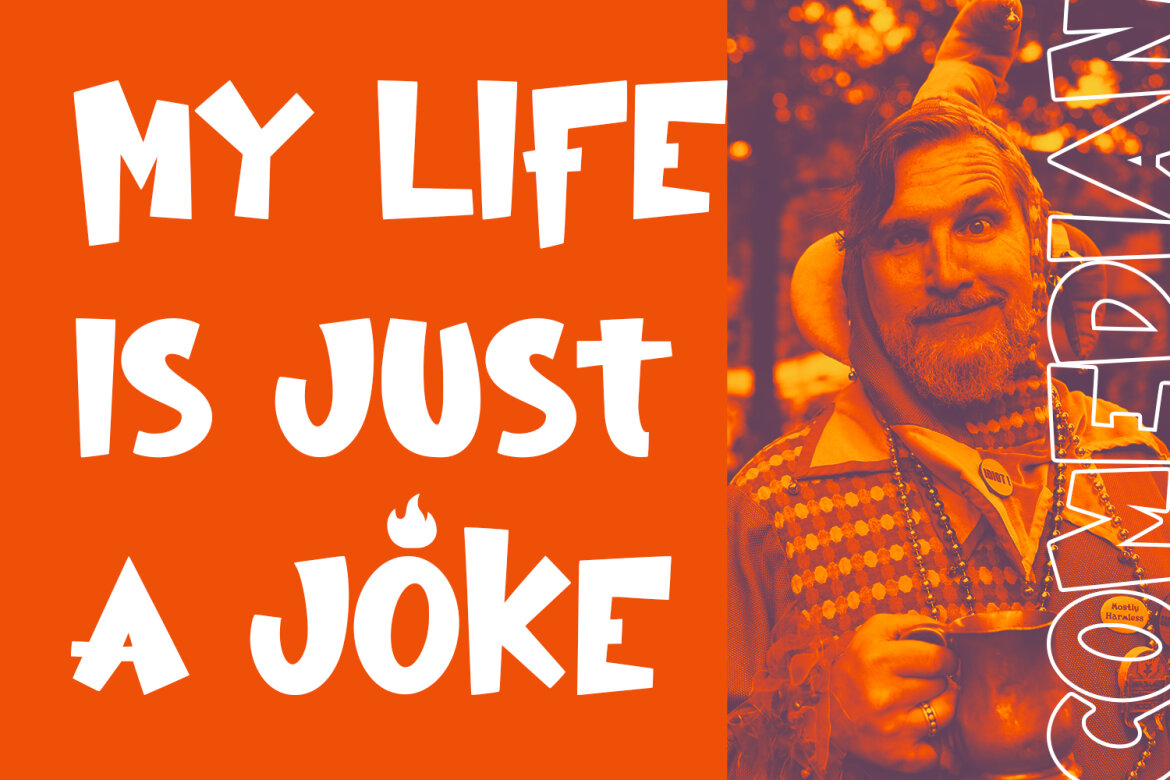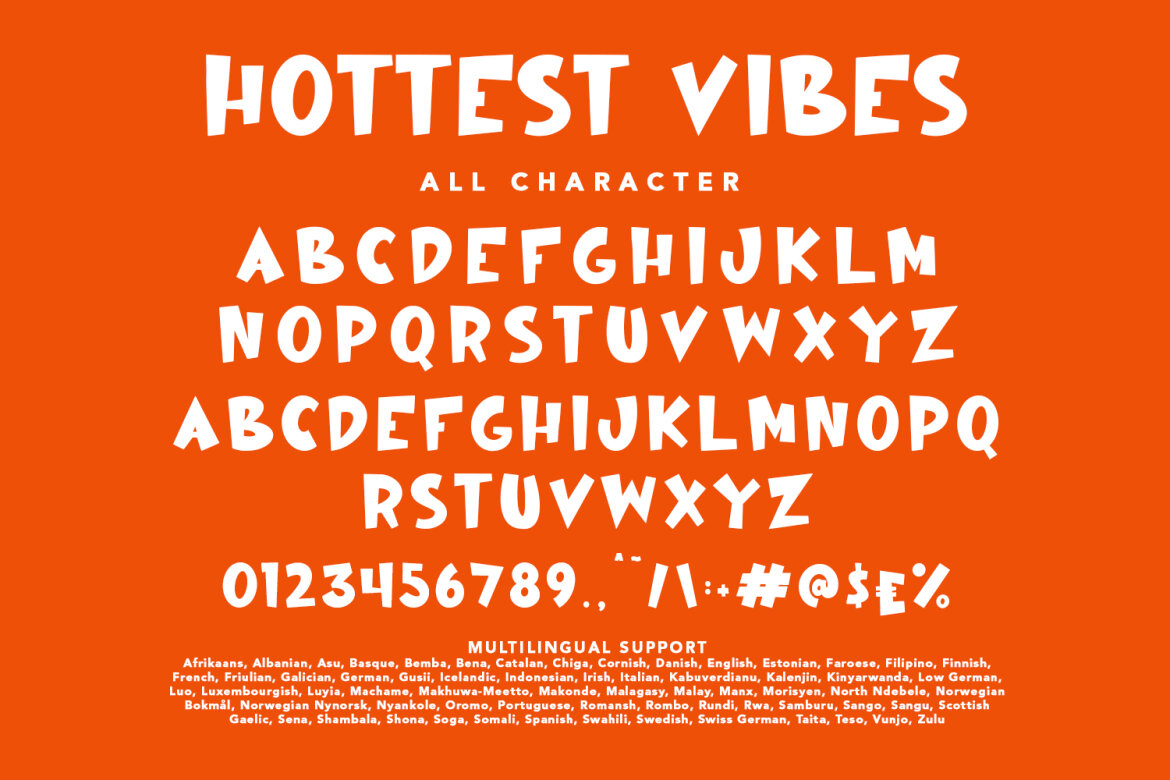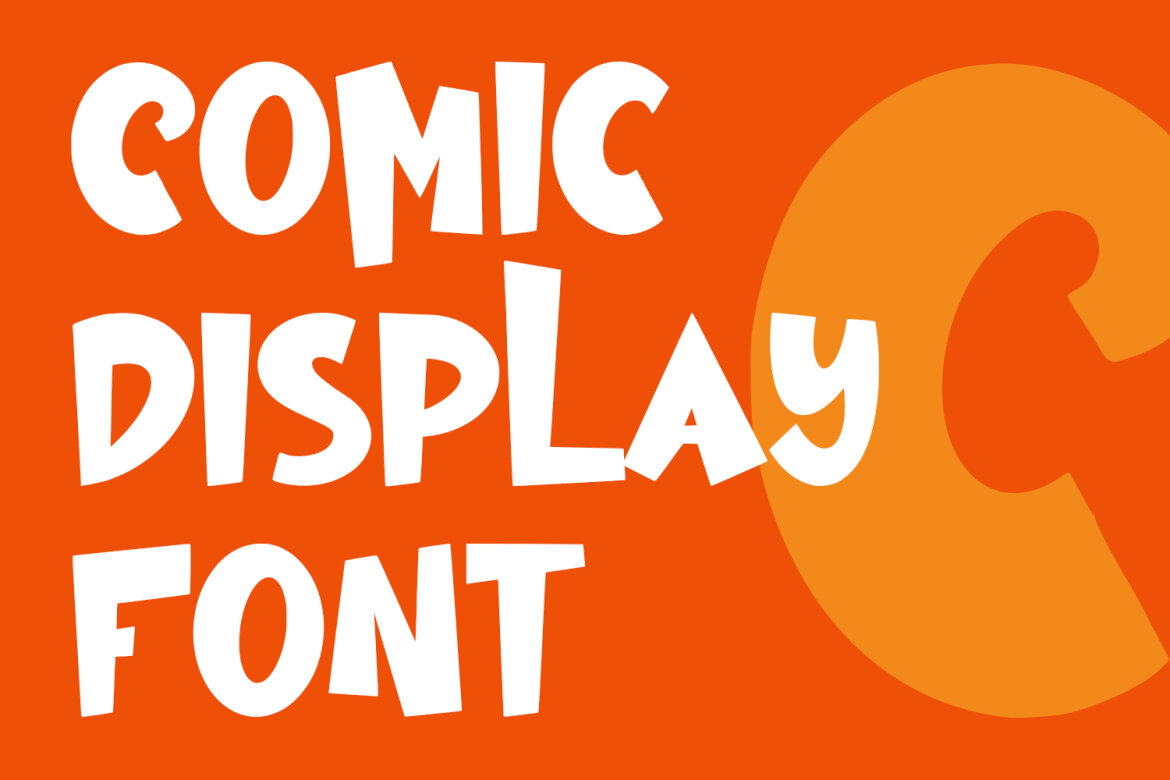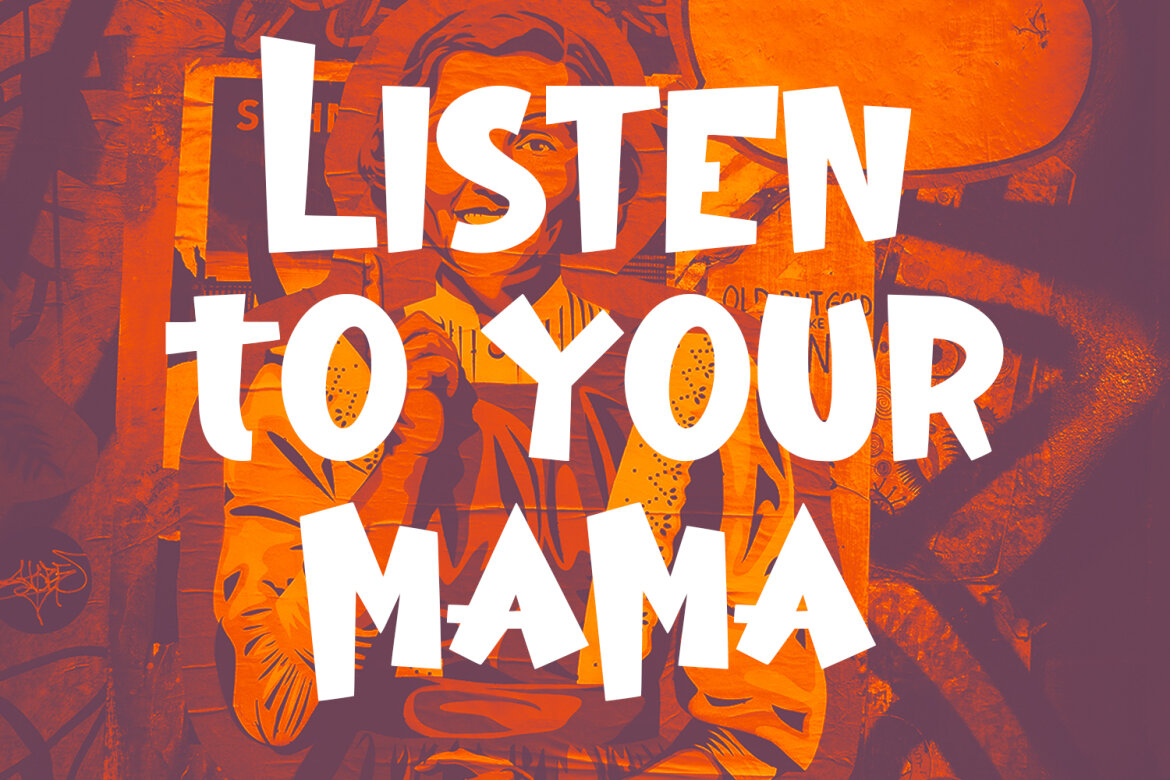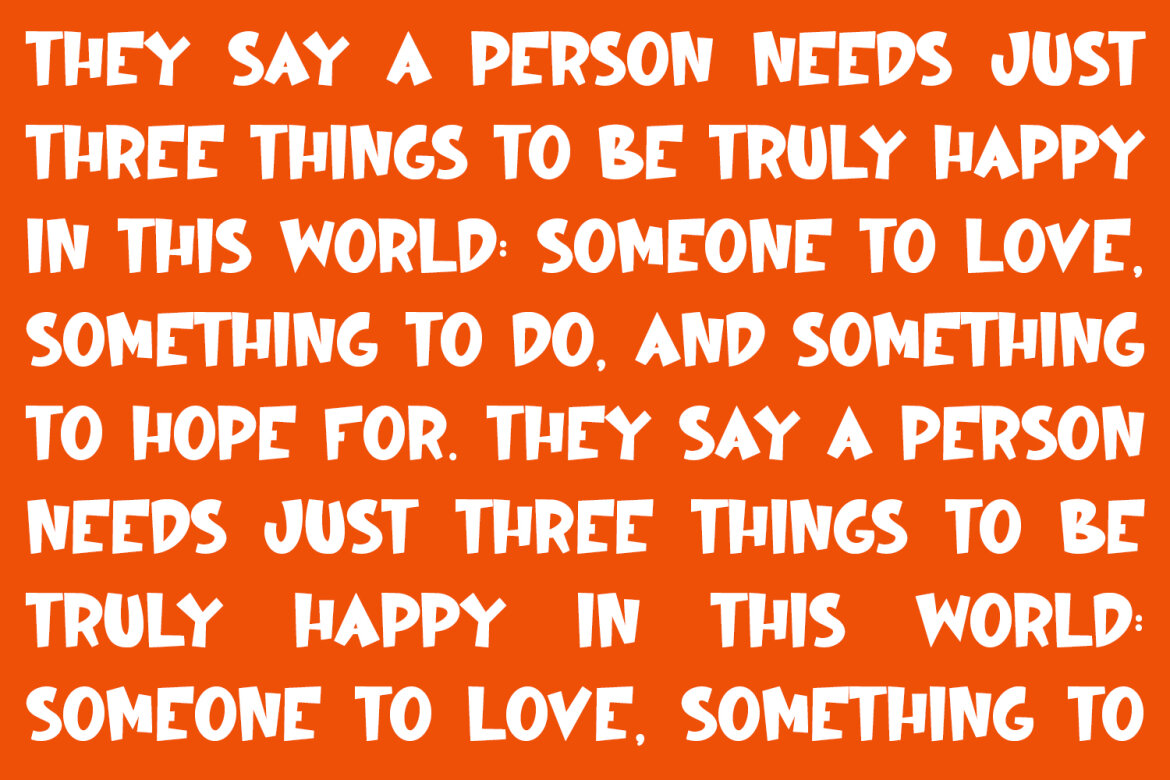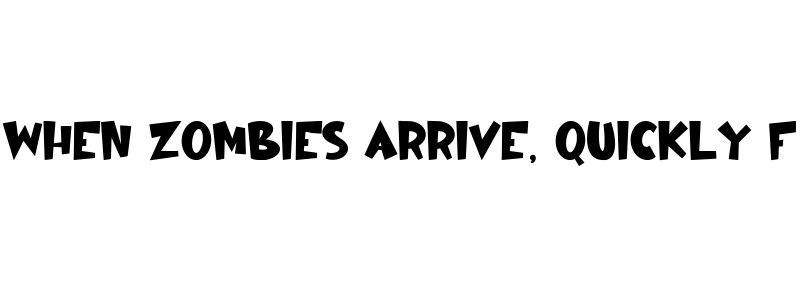
Hottest Vibes Comic FREE Font
Hottest Vibes
Hottest Vibes Comic Display Font. With bold brush stroke, fun character with a bit of ligatures. To give you an extra creative work. Hottest Vibes font support multilingual more than 100+ language. This font is good for logo design, Social media, Movie Titles, Books Titles, a short text even a long text letter and good for your secondary text font with sans or serif. Make a stunning work with Hottest Vibes font.